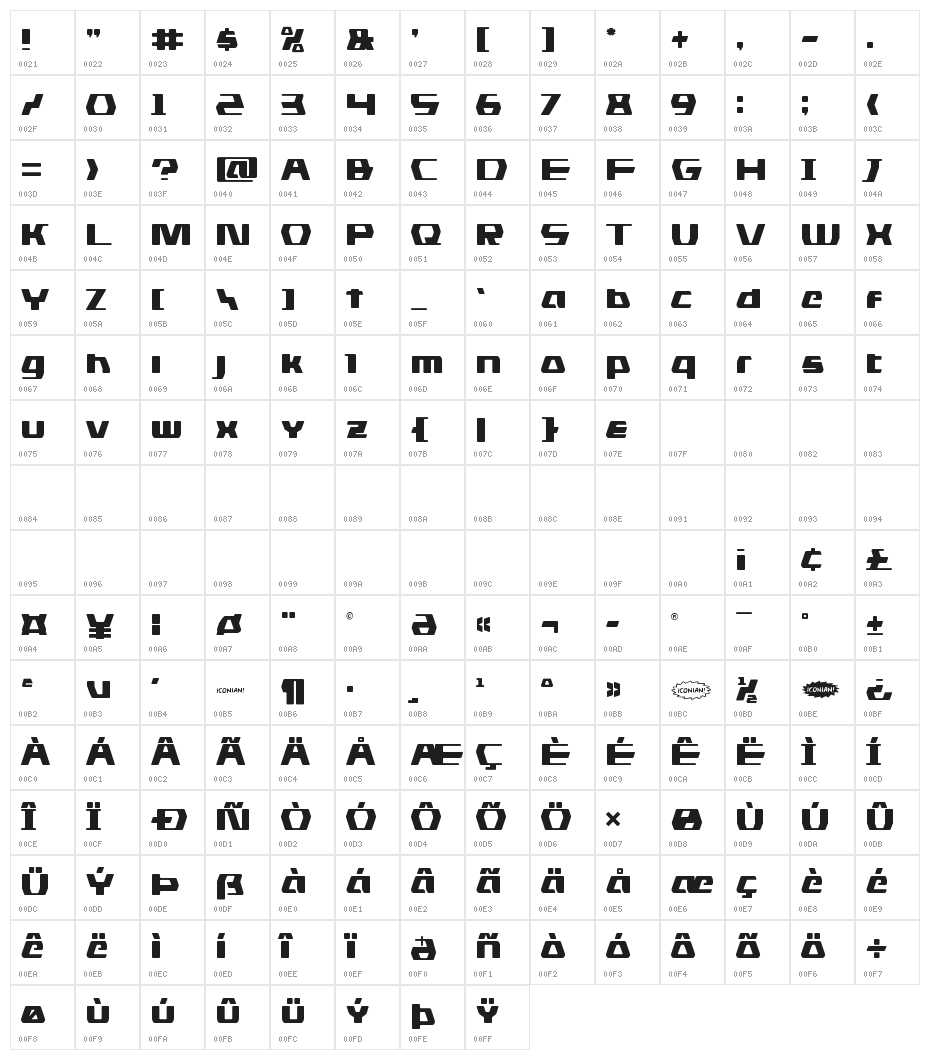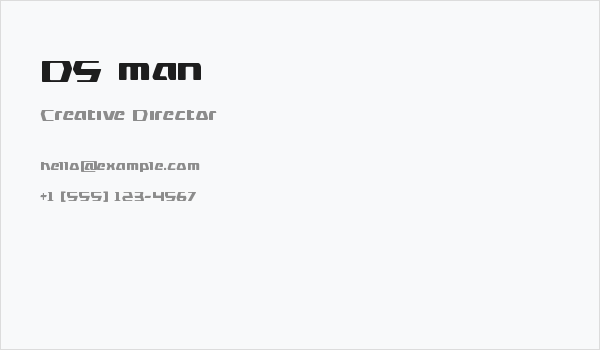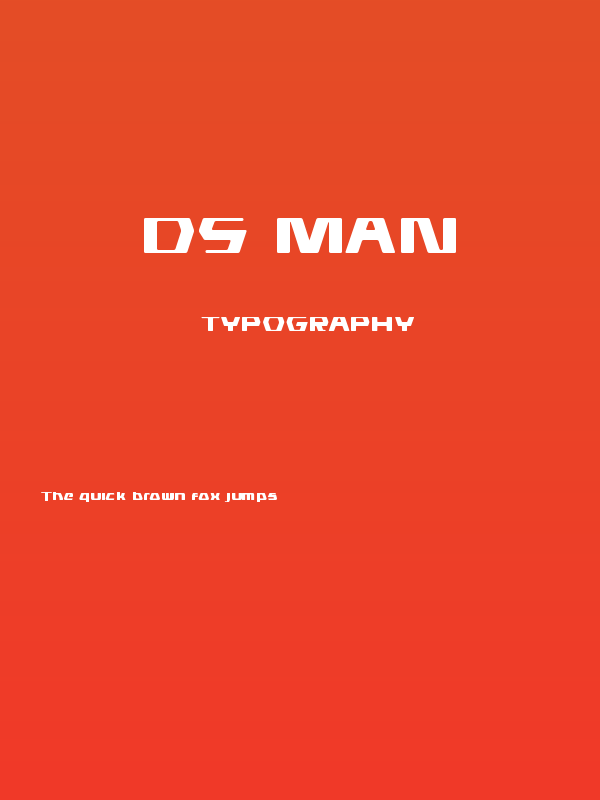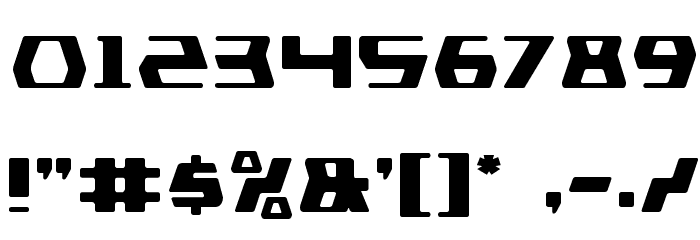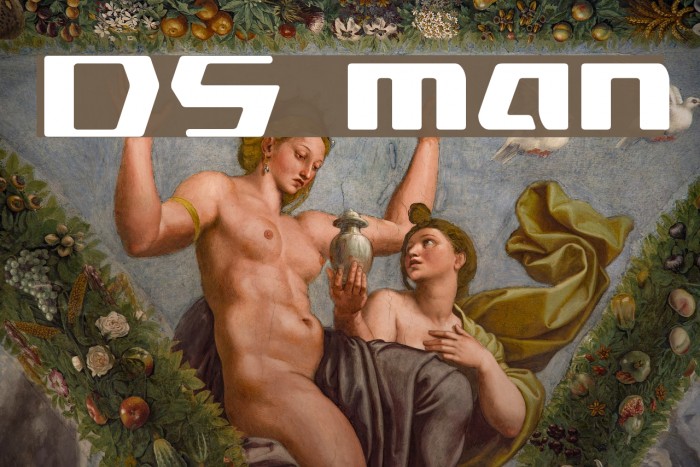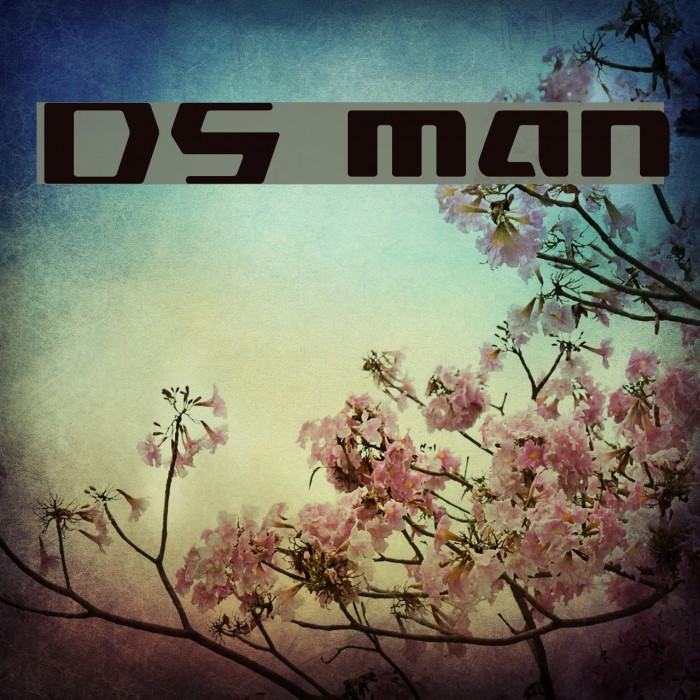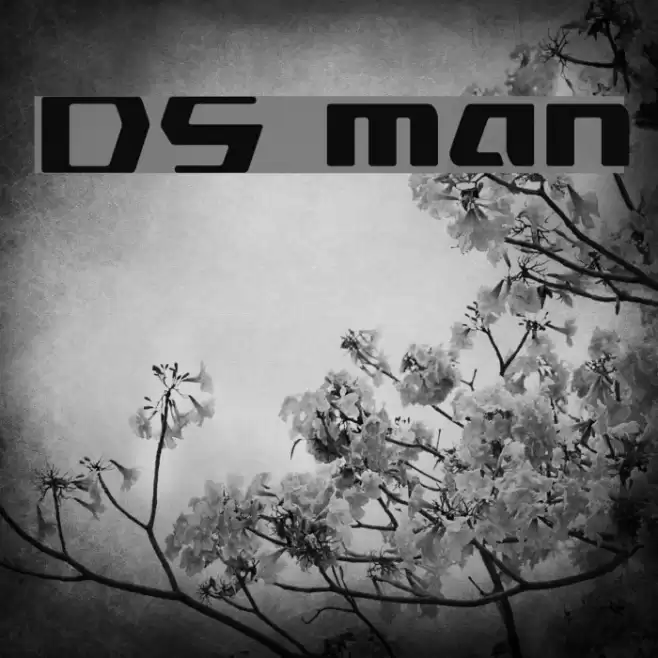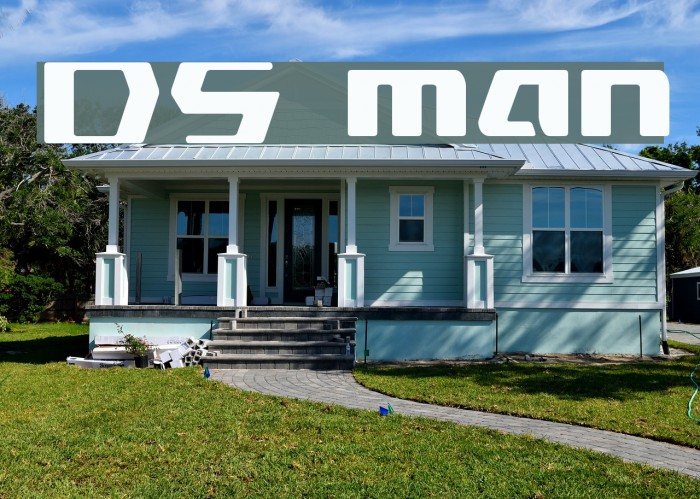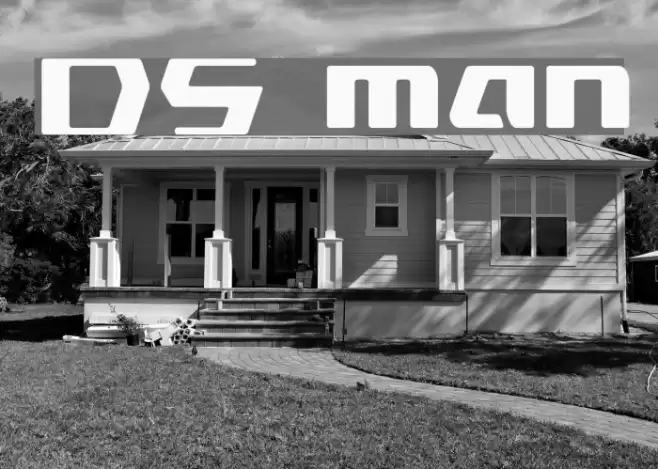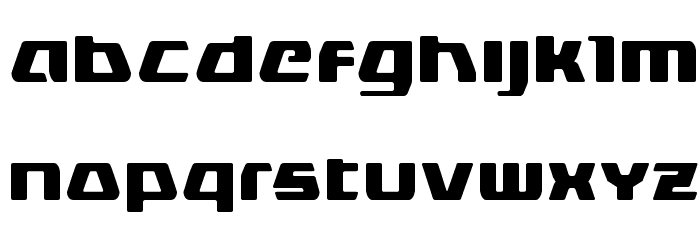
DS man Font
DS man Description
This font features a bold and futuristic design with angular, geometric shapes that give it a strong, impactful presence. The characters are uniformly thick, with sharp edges and a slightly condensed appearance. The uppercase and lowercase letters maintain a consistent style, while the numbers and special characters blend seamlessly with the overall design. This font's distinct look makes it ideal for projects that require a modern and edgy aesthetic.
| Proposed Projects | Ideal for technology branding, video game titles, sci-fi movie posters, and modern advertising campaigns. |